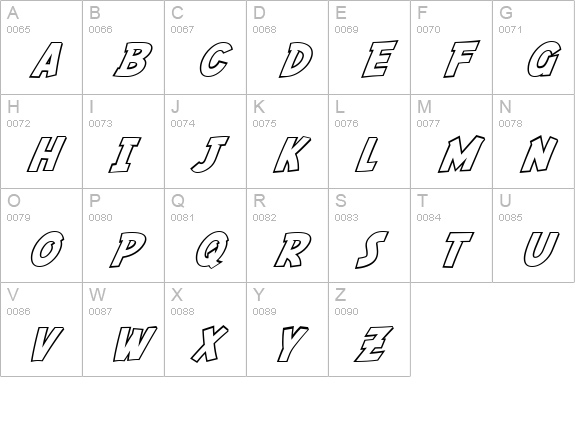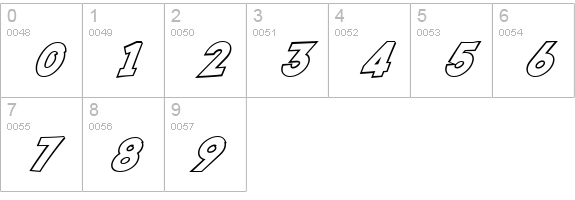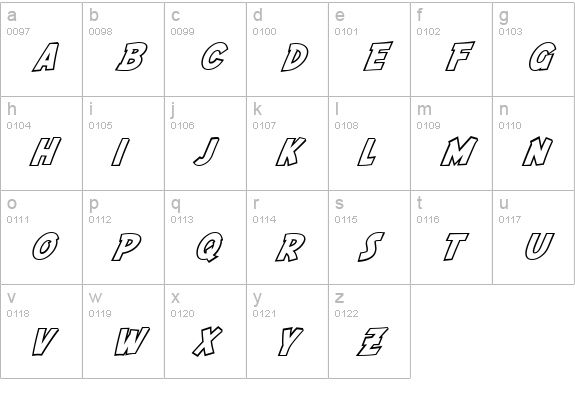
SF Fedora Outline Font Details
SF Fedora Outline font is a stylish and modern typeface that combines classic elegance with a contemporary twist. Its sleek outlines and clean lines make it perfect for a wide range of design projects, from logos to branding to posters. This font exudes sophistication and professionalism, making it ideal for adding a touch of refinement to any project. What makes SF Fedora Outline font even more appealing is that it is completely free for personal and commercial use. You can easily download this versatile font from FontsMarket.com, where you can access a wide range of high-quality fonts to enhance your creative projects. Don't miss out on the opportunity to add SF Fedora Outline font to your font library today and elevate your designs to the next level.